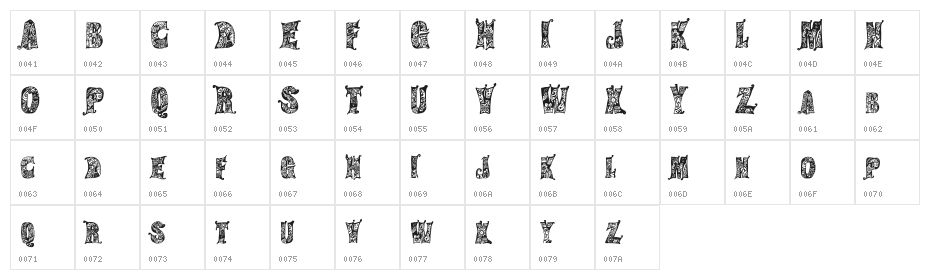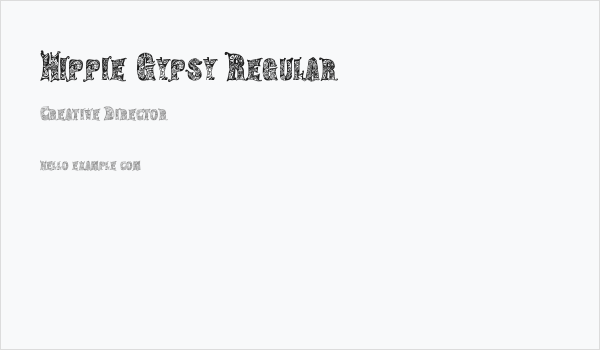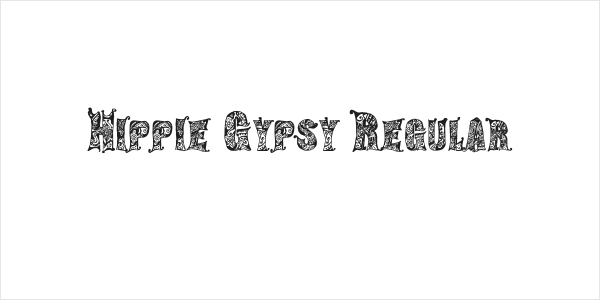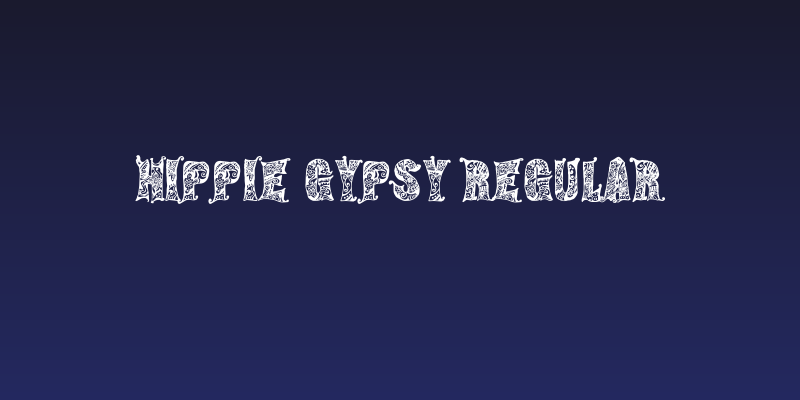
Hippie Gypsy Regular Font
Hippie Gypsy Regular Description
This font is a vibrant and intricate display typeface that captures the essence of a bohemian and free-spirited aesthetic. Each character is adorned with detailed patterns and embellishments, reminiscent of psychedelic art and hippie culture. The letters are bold and eye-catching, with a whimsical flair that makes them stand out. The decorative elements within each character add a layer of complexity and artistic expression, making it ideal for projects that require a unique and artistic touch. The overall design is playful yet sophisticated, offering a sense of nostalgia and creativity.
| Proposed Projects | Ideal for music festival posters, bohemian-themed invitations, artistic branding, and creative merchandise designs. |